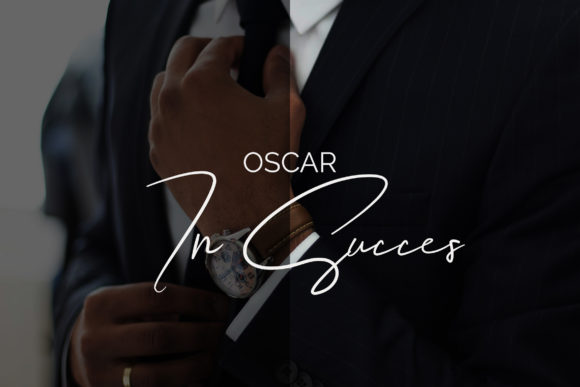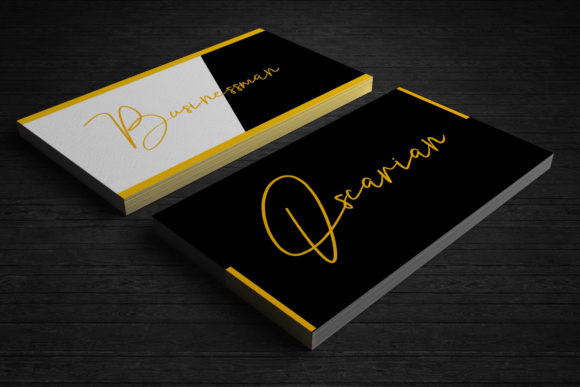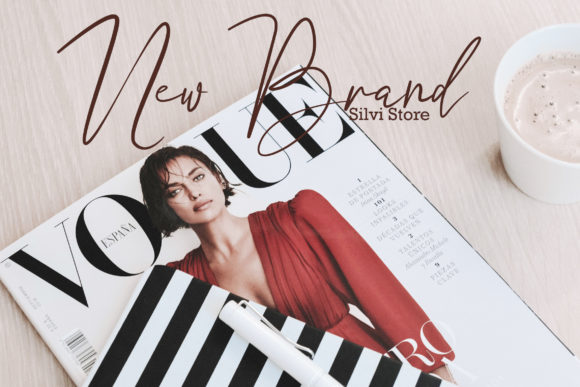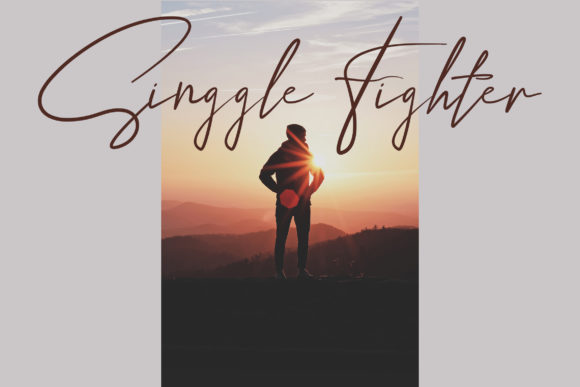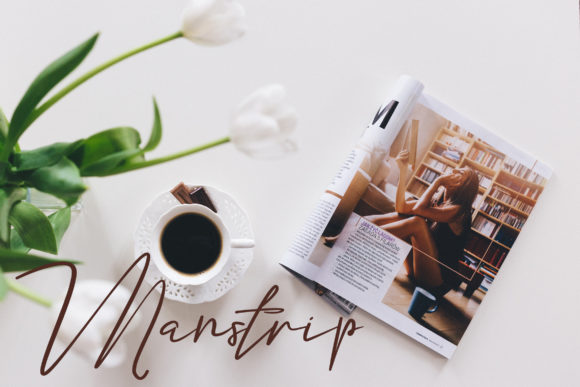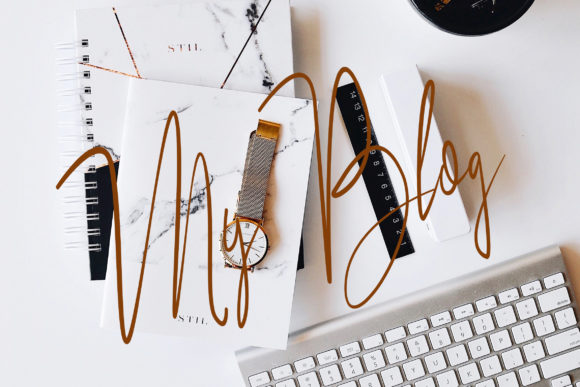
Introduction to Sapda Tama Font
Have you ever been working on a creative project, pouring your heart and soul into it, only to be stumped by the perfect font? I know I have. The struggle is real, especially when you’re going for a romantic or elegant vibe. But what if I told you that there’s a solution that will make your design dreams come true? Enter the enchanting Sapda Tama Font, a high-quality script font that’s sure to add a touch of magic to your crafting project.
As a designer, you know how valuable the right font can be. It can make or break the entire aesthetic of your design. And with the Sapda Tama Font, you’ll have access to a beautiful and elegant script font that’s perfect for a wide range of creative projects. From invitations to digital art, this font is sure to impress. Plus, with its transparent background, you can easily layer it over other design elements for a unique and eye-catching look.
Key Features of Sapda Tama Font
- High-quality design for creative projects with a unique aesthetic.
- Designed with a bold and modern style, perfect for adding a touch of sophistication to any design project.
- Features a clear and readable font, suitable for both body text and headings in creative projects.
Honest Review: Sapda Tama Font
I recently came across the Sapda Tama Font, and I must say it’s been a great addition to my design resources. This font is perfect for creative projects that require a unique touch. The high-quality design is evident in every aspect of the font.
- ✨ The transparent background allows for seamless integration with any design.
- ✨ The font is highly customizable, making it perfect for designers who like to experiment with different styles.
- ⚠️ Some users may find the font too stylized, which can be a drawback for those who prefer more traditional designs.
Overall, I’m impressed with the Sapda Tama Font. It’s a great design resource for those looking to add a unique touch to their creative projects. With its high-quality design and transparent background, it’s definitely worth checking out.
The Sapda Tama Font is a high-quality design resource ideal for creative projects. With its unique style and transparent background, it’s perfect for designers looking for a distinctive touch.
Getting the Most Out of Sapda Tama Font
For the best results, use the Sapda Tama Font in conjunction with other design elements. Experiment with different font sizes, colors, and arrangements to create a unique visual effect.
The Sapda Tama Font is suitable for a variety of design projects, including:
With its high-quality design and transparent background, the Sapda Tama Font is an excellent choice for designers looking to add a touch of creativity to their projects.